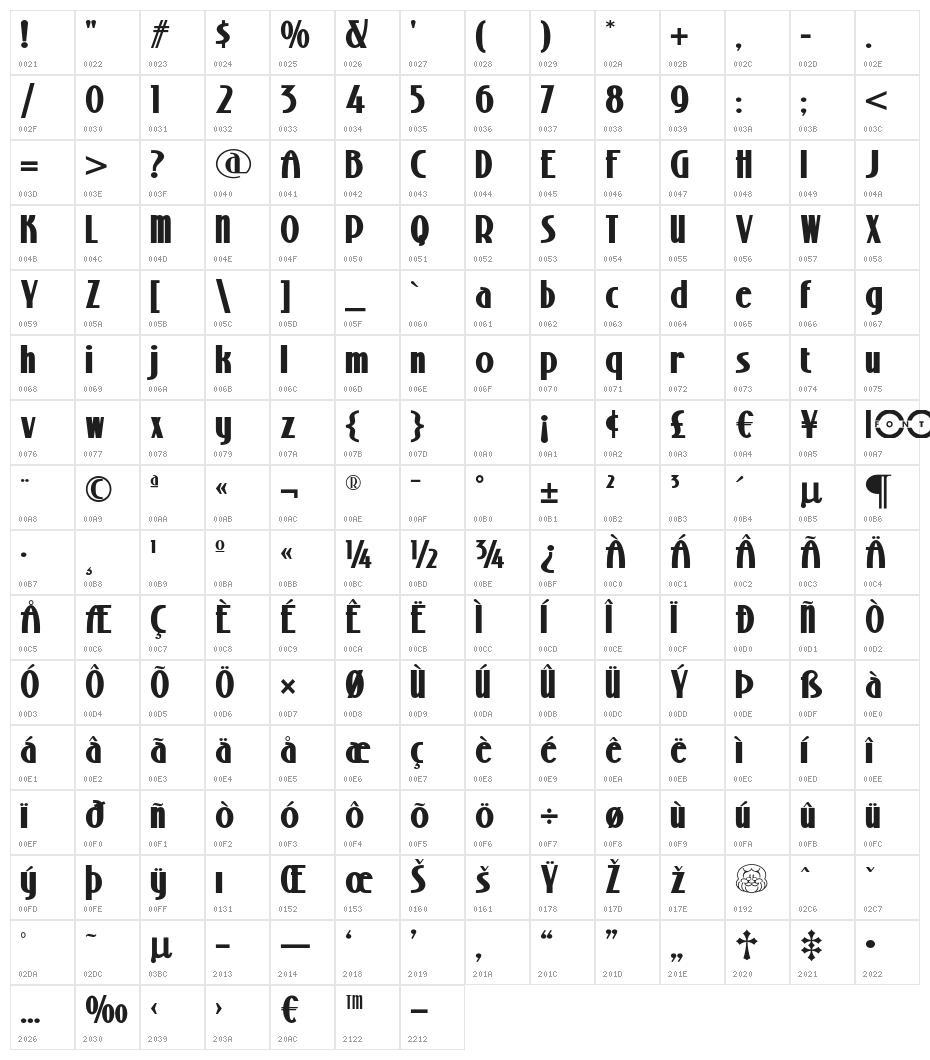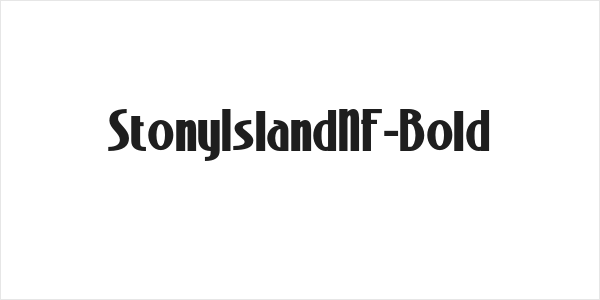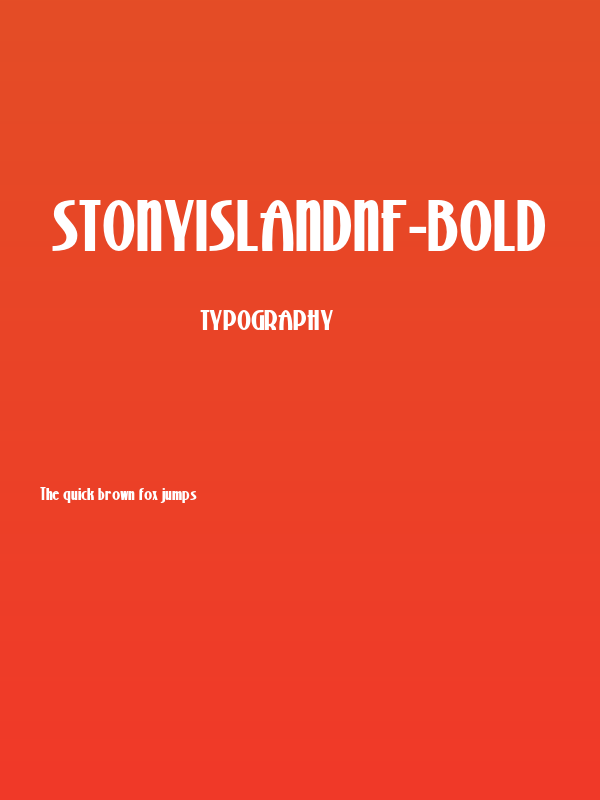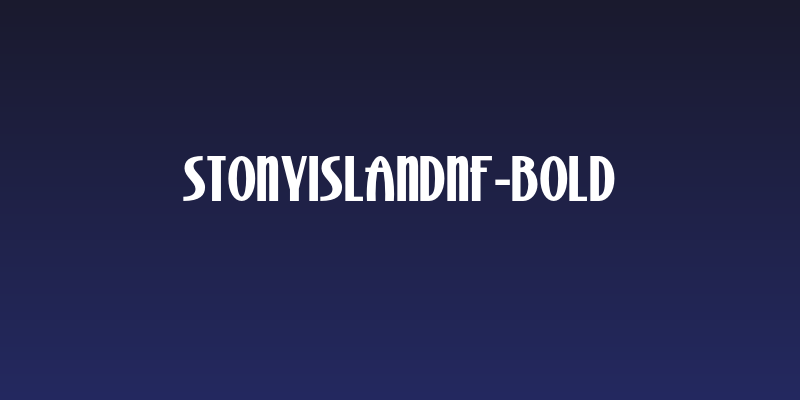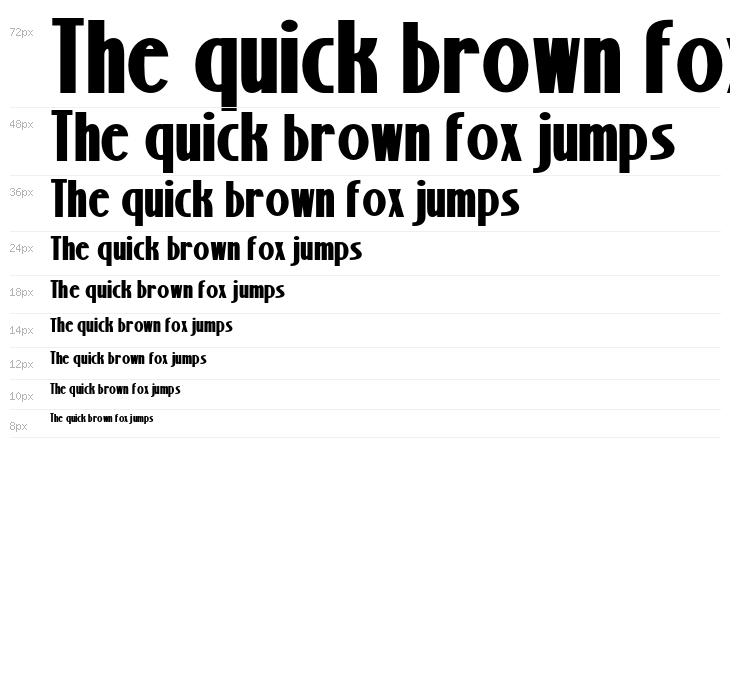
StonyIslandNF-Bold Font
StonyIslandNF-Bold Description
This bold, decorative font features a unique blend of geometric and organic shapes, creating a striking visual impact. The uppercase letters are tall and narrow, with a slight curve that adds a touch of elegance. The lowercase letters maintain a consistent height, providing a harmonious balance with the uppercase. Numbers are bold and clear, ensuring readability. Special characters are designed with the same boldness, making them stand out. The overall style is modern with a vintage flair, suitable for eye-catching designs.
| Overall Style | Modern, Vintage |
| Proposed Projects | Ideal for posters, branding, headlines, and any project requiring a bold, attention-grabbing typeface. |